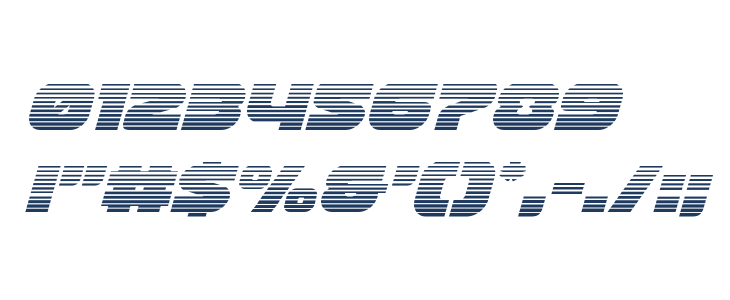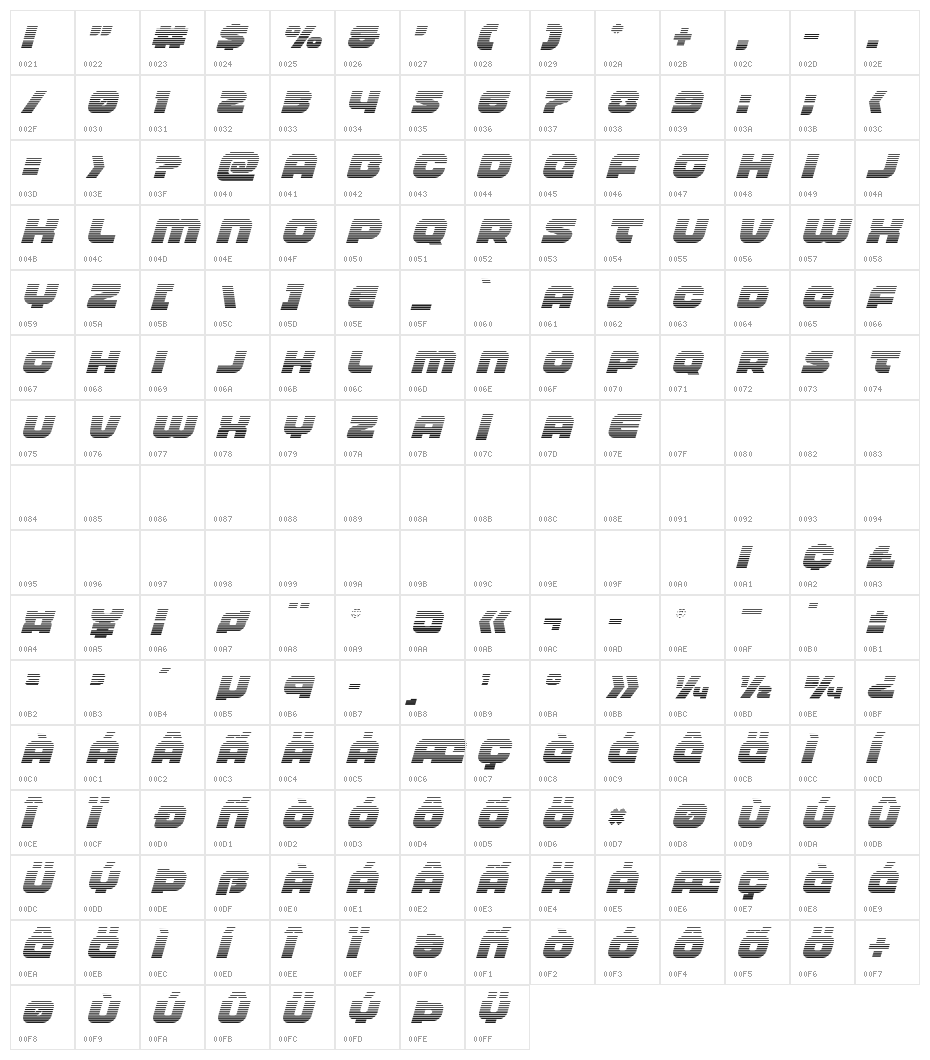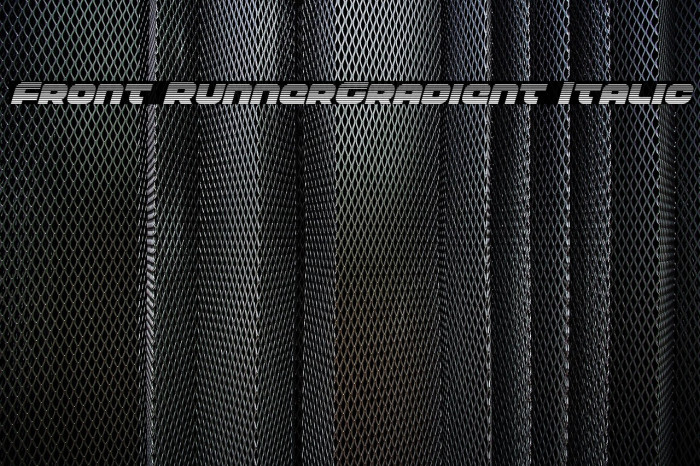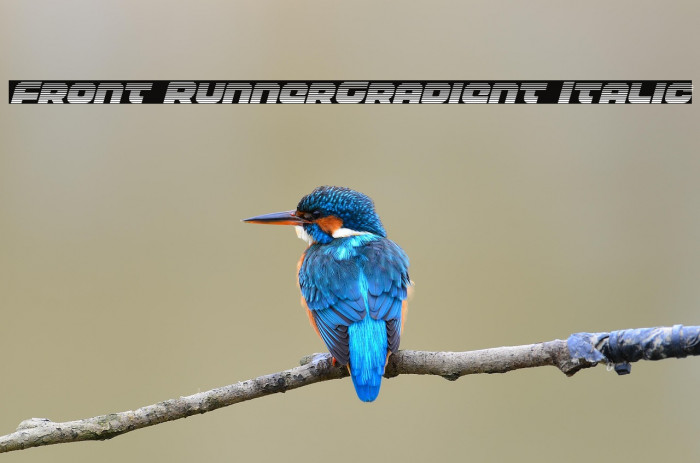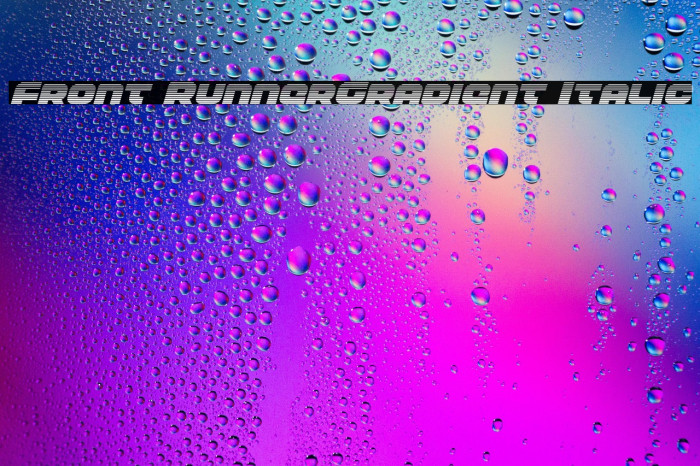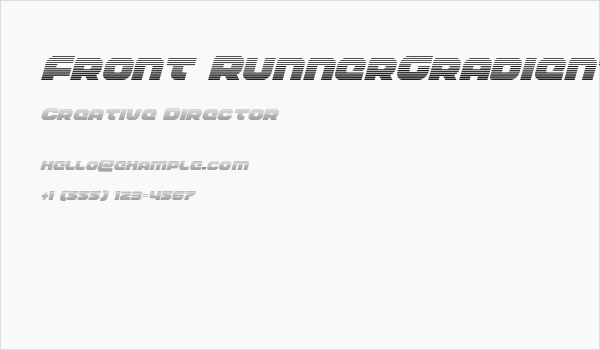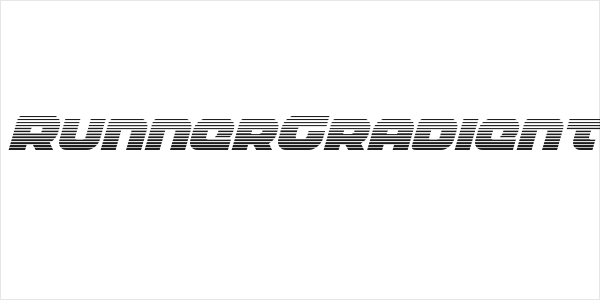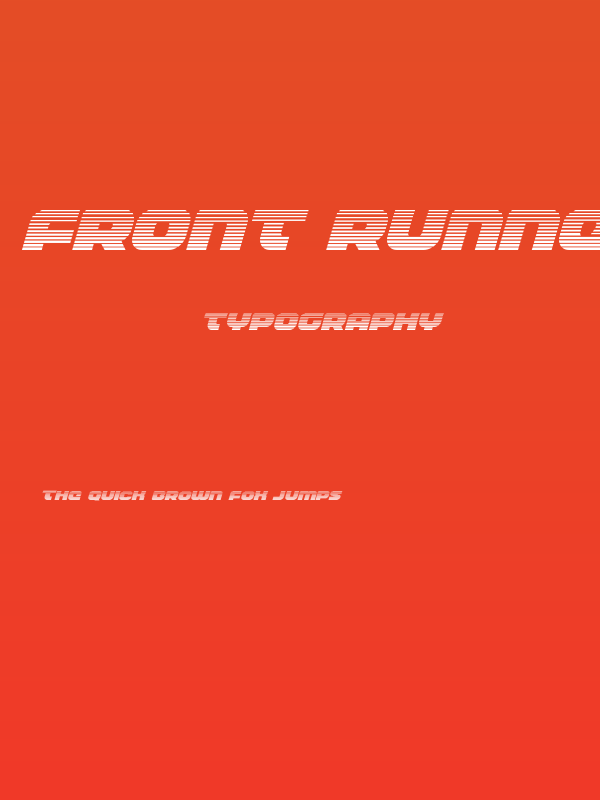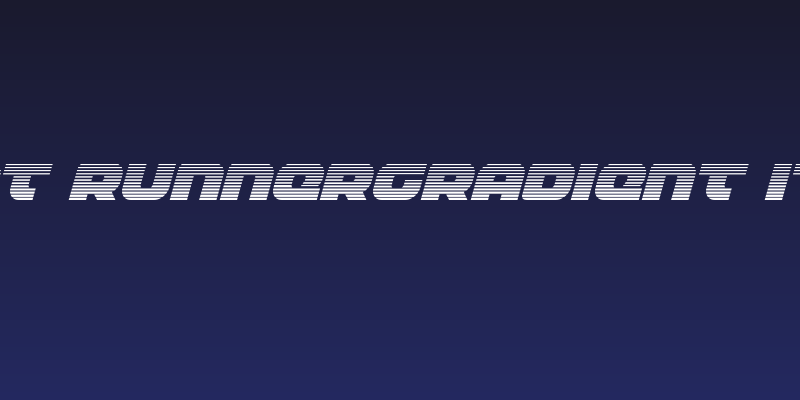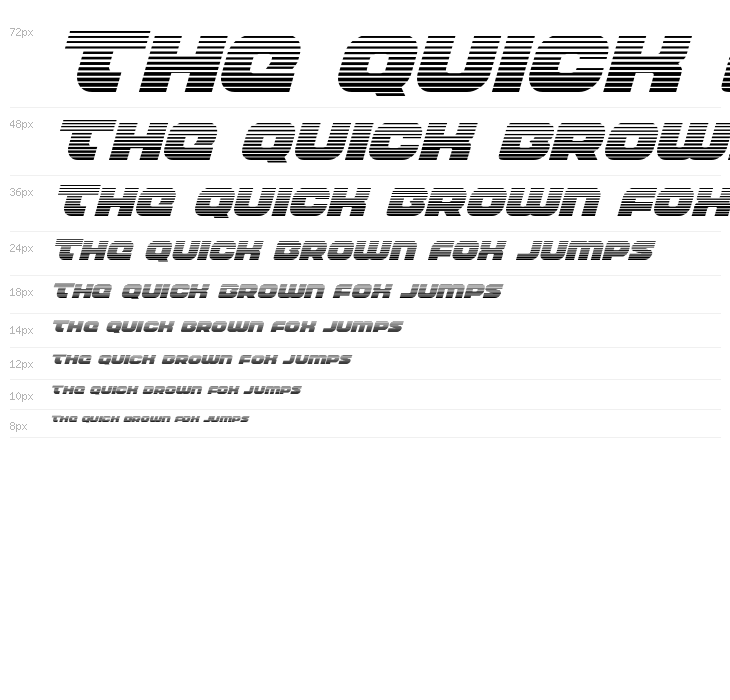
Front RunnerGradient Italic Font
Front RunnerGradient Italic Description
This font features a bold, italicized style with a distinctive gradient effect created by horizontal lines running through each character. The uppercase and lowercase letters, as well as numbers and special characters, all share this unique striped pattern, giving the font a dynamic and futuristic appearance. The characters are wide and have a strong presence, making them suitable for attention-grabbing designs. The italic slant adds a sense of motion and speed, enhancing its modern and edgy look.